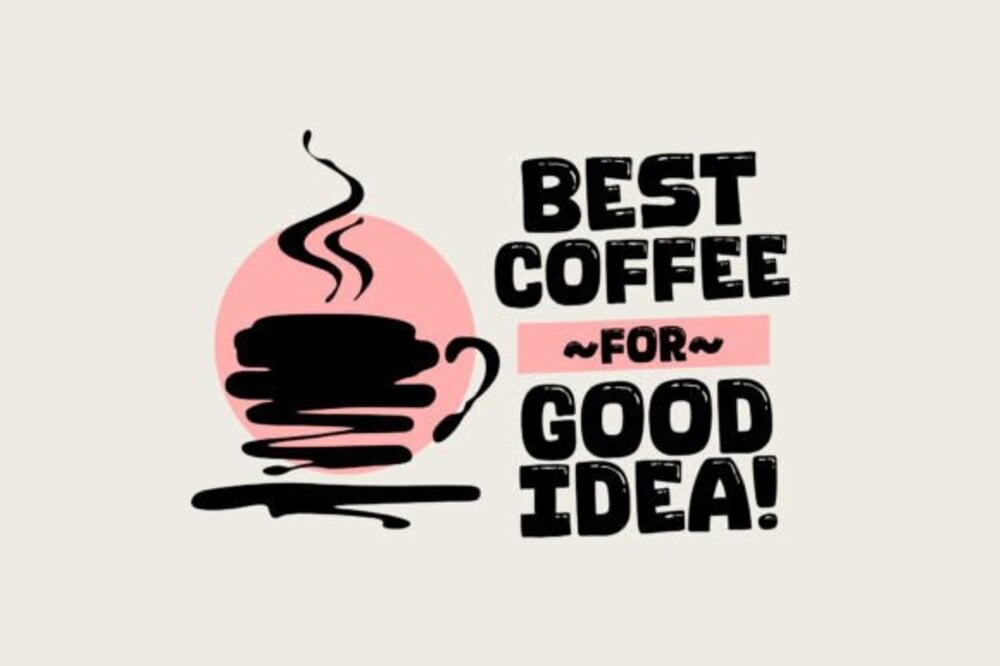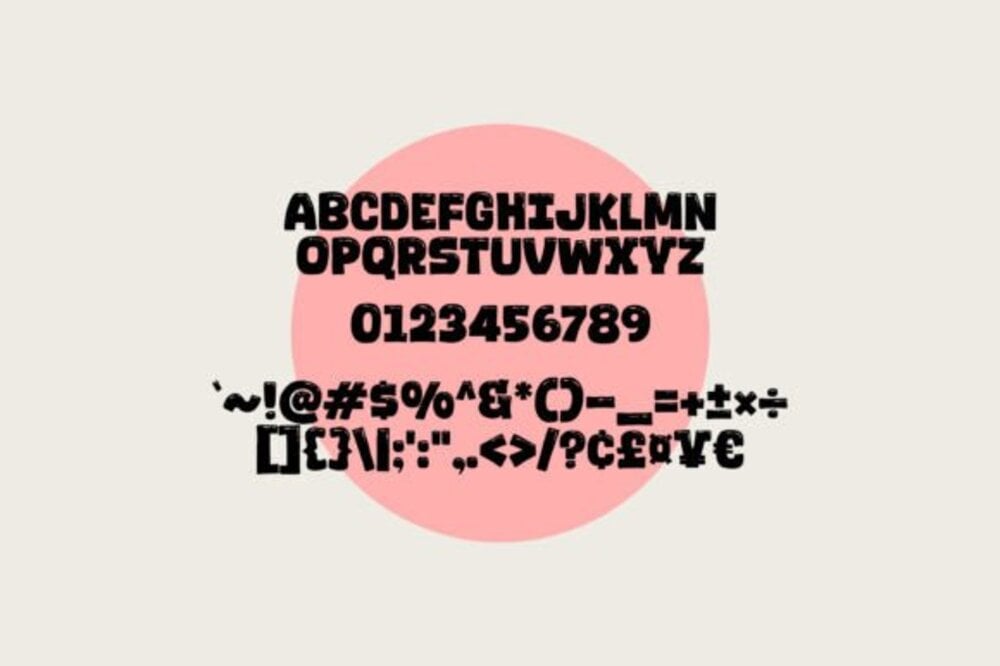
Santai Relax Font
Santai Relax is a soothing and elegant font designed to bring a sense of calm and tranquility to your projects. With its smooth, flowing lines and minimalist aesthetic, this typeface is perfect for spa menus, wellness branding, vacation promotions, or any design that evokes relaxation. Its versatile and graceful style adds a touch of serenity, making Santai Relax an ideal choice for creating peaceful and inviting visuals.